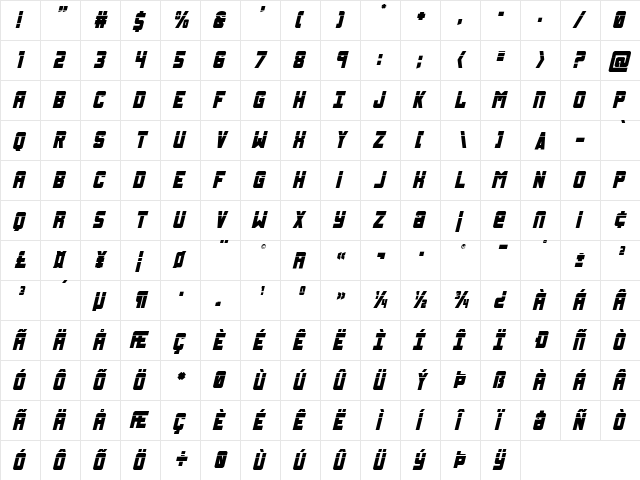
Urban Defender Laser Italic Italic
Design Context for Urban Defender Laser Italic Typeface
Urban Defender Laser Italic is a composed and adaptable typeface that performs quietly and consistently across a wide range of design contexts. The dynamic lean of this cut emphasises speed and emphasis in any layout.